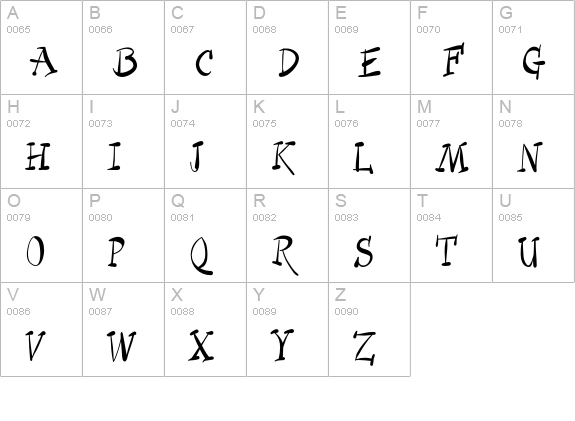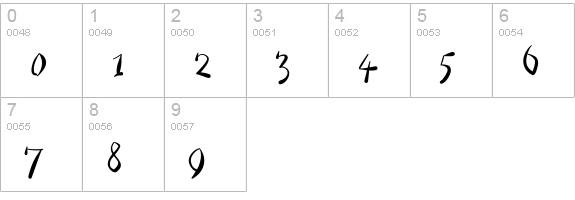
Quill-Demi Font Details
Quill-Demi is a sub-bold, structured variant in the Quill typeface family \xE2\x80\x94 well suited to sub-headlines and emphasised passages.
Quill-Demi font is a stunning typeface that effortlessly combines elegance and modernity. With its sleek and refined design, this font is perfect for various creative projects, including branding, logos, invitations, and more. The Quill-Demi font features clean lines and a slightly bold weight, giving it a strong presence while maintaining a sense of sophistication. One of the best things about Quill-Demi font is that it is available for free. You can easily download this font at FontsMarket.com, a trusted source for high-quality fonts. Whether you are a professional designer or simply someone who appreciates beautiful typography, this font is a must-have in your collection. The Quill-Demi font offers versatility and flexibility, allowing you to create visually captivating designs that capture attention. Its well-defined characters and balanced spacing ensure readability, making it suitable for both print and digital projects. Enhance your creative endeavors with Quill-Demi font and let your designs stand out from the crowd. Whether you're crafting an eye-catching headline or adding a touch of elegance to your website, this font will undoubtedly elevate your work to new heights. Download Quill-Demi font for free today at FontsMarket.com and unlock its limitless potential. Experience the seamless blend of style and functionality that this font brings to your projects. Don't miss this opportunity to add a touch of sophistication to your designs with this remarkable typeface.